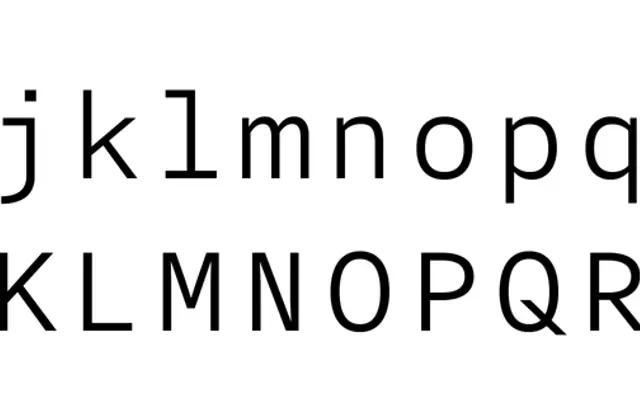
Nitti
Bold Monday · Pieter van Rosmalen, Yanek Iontef · 2007
A monospaced grotesque in five weights by Pieter van Rosmalen and Yanek Iontef, drawing on the idiosyncratic letterforms of early 19th-century British sans-serifs.
Rooted in the quirky, humanist character of Victorian-era Grotesques, Nitti brings warmth and personality to a fixed-width format across ten styles from Light to Black with matching italics. The character set is unusually broad, covering Latin, Cyrillic, Greek and Hebrew scripts and supporting well over a hundred languages. It sits within a wider Grotesque-themed collection from Bold Monday that includes the poster-weight Stanley and the proportional Nitti Grotesk.
Nitti is explicitly monospaced and rooted in 19th-century Grotesque sans-serif traditions, making it a grotesque monospaced typeface. Its idiosyncratic letterforms draw directly from early English sans-serif designs.